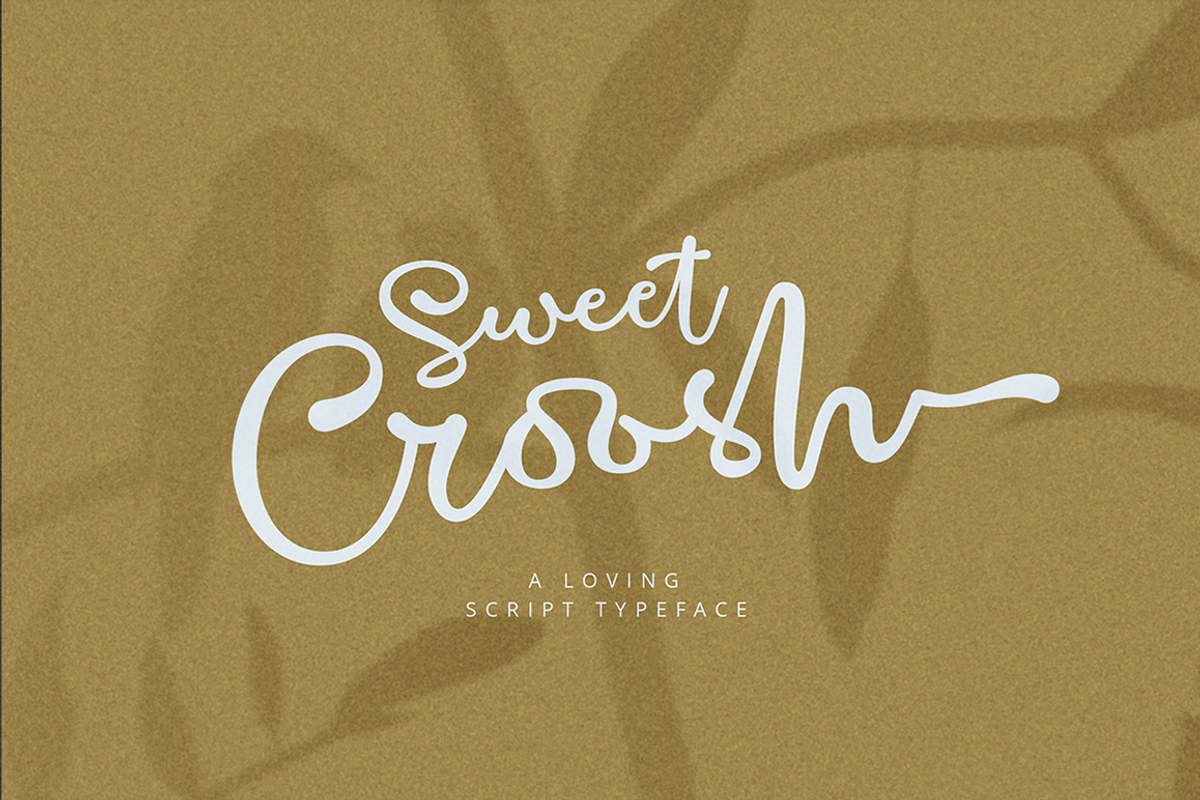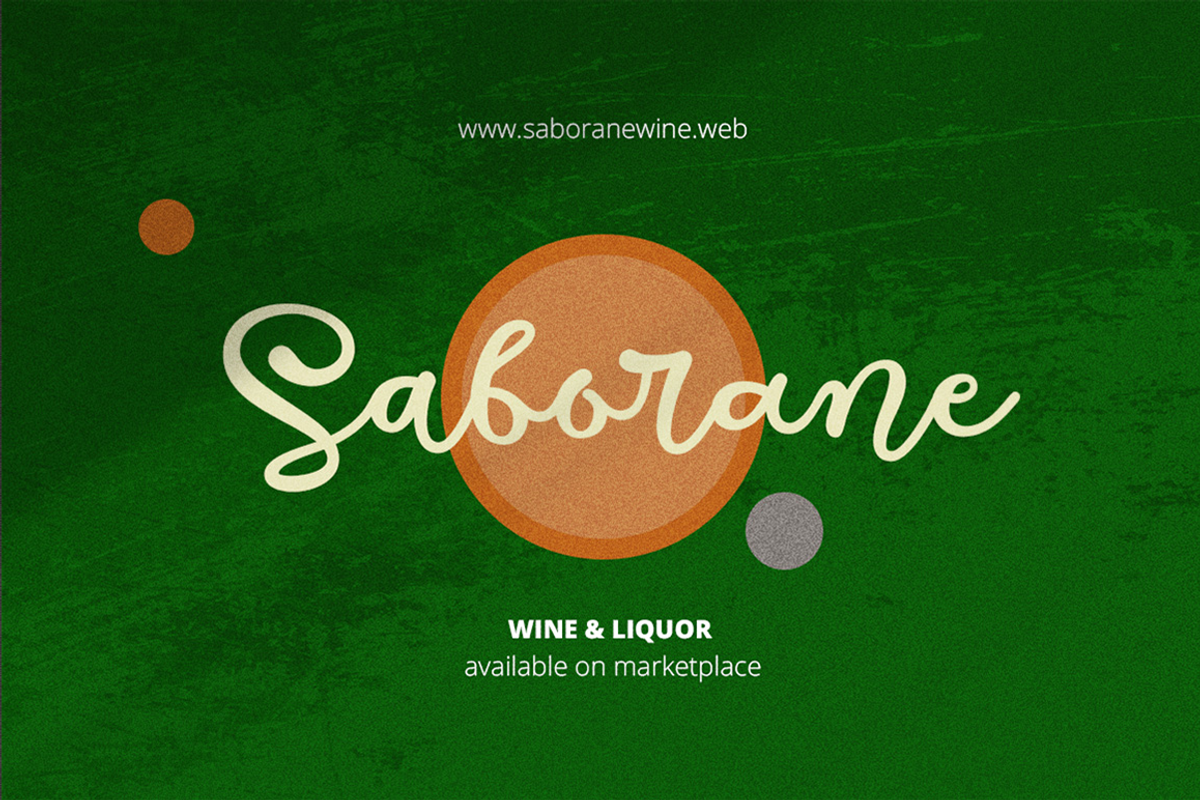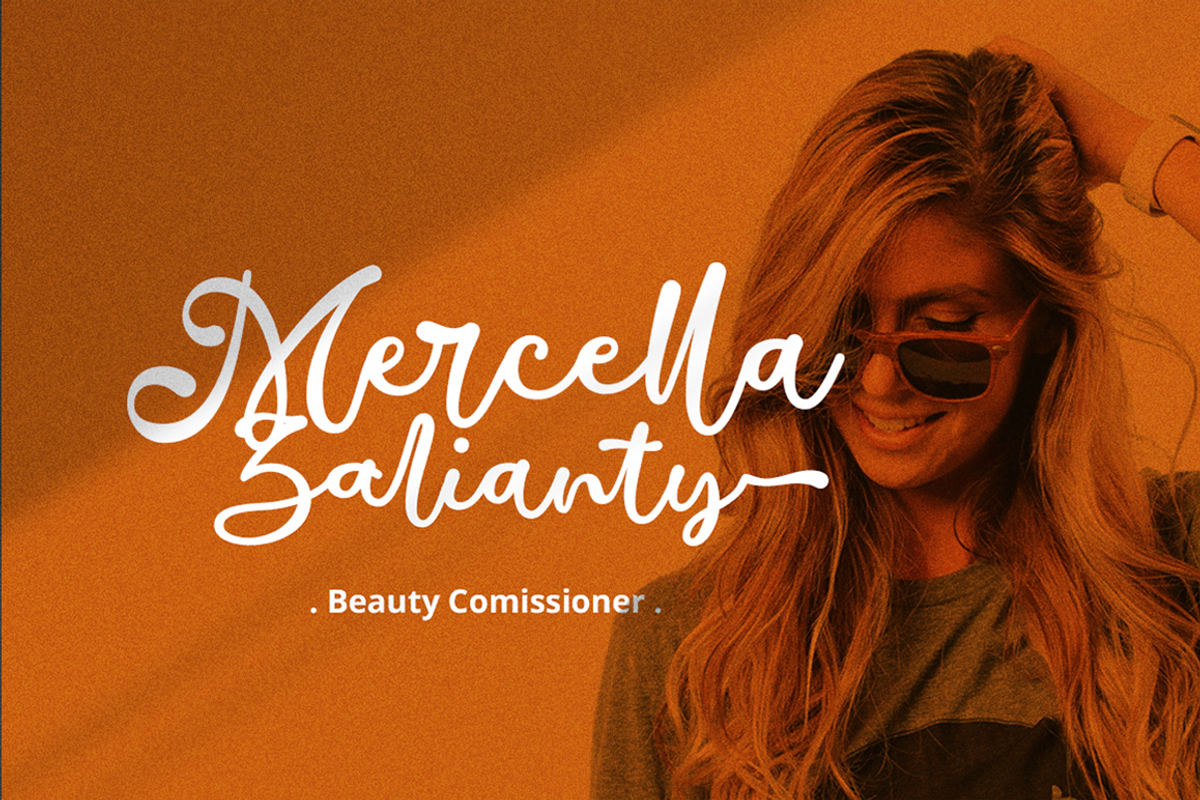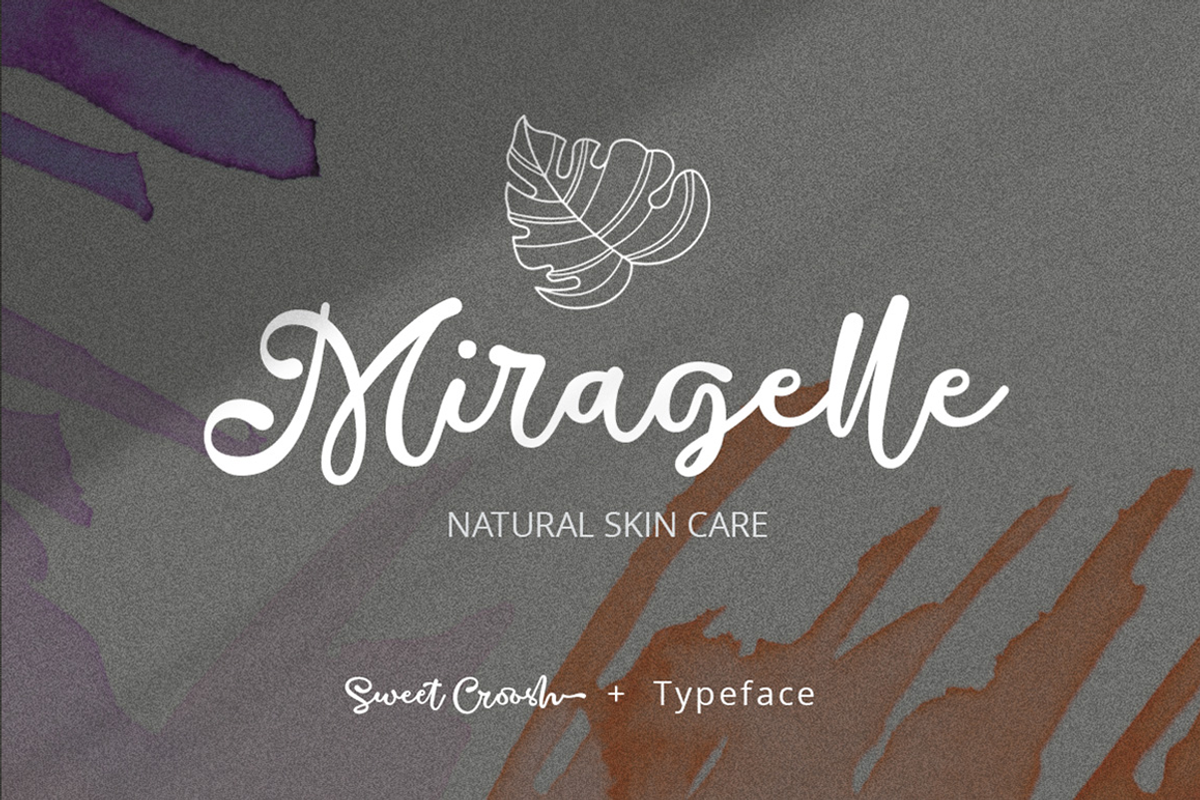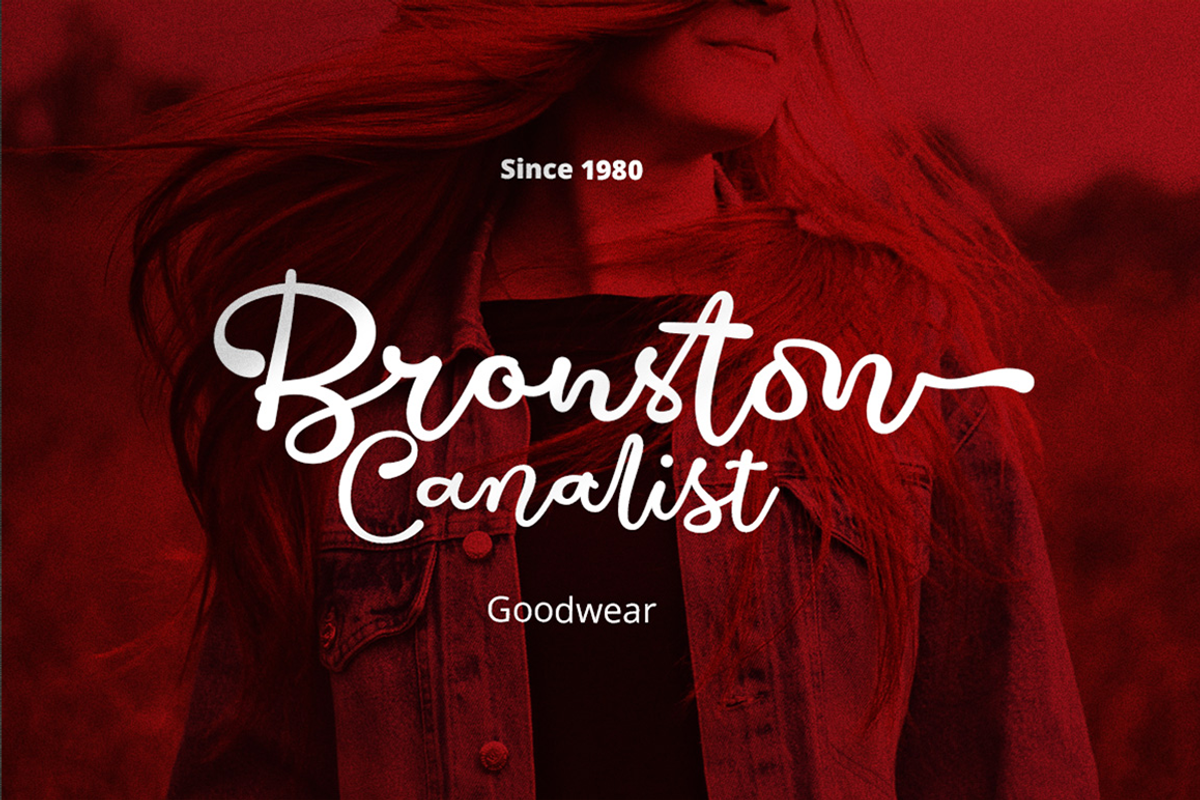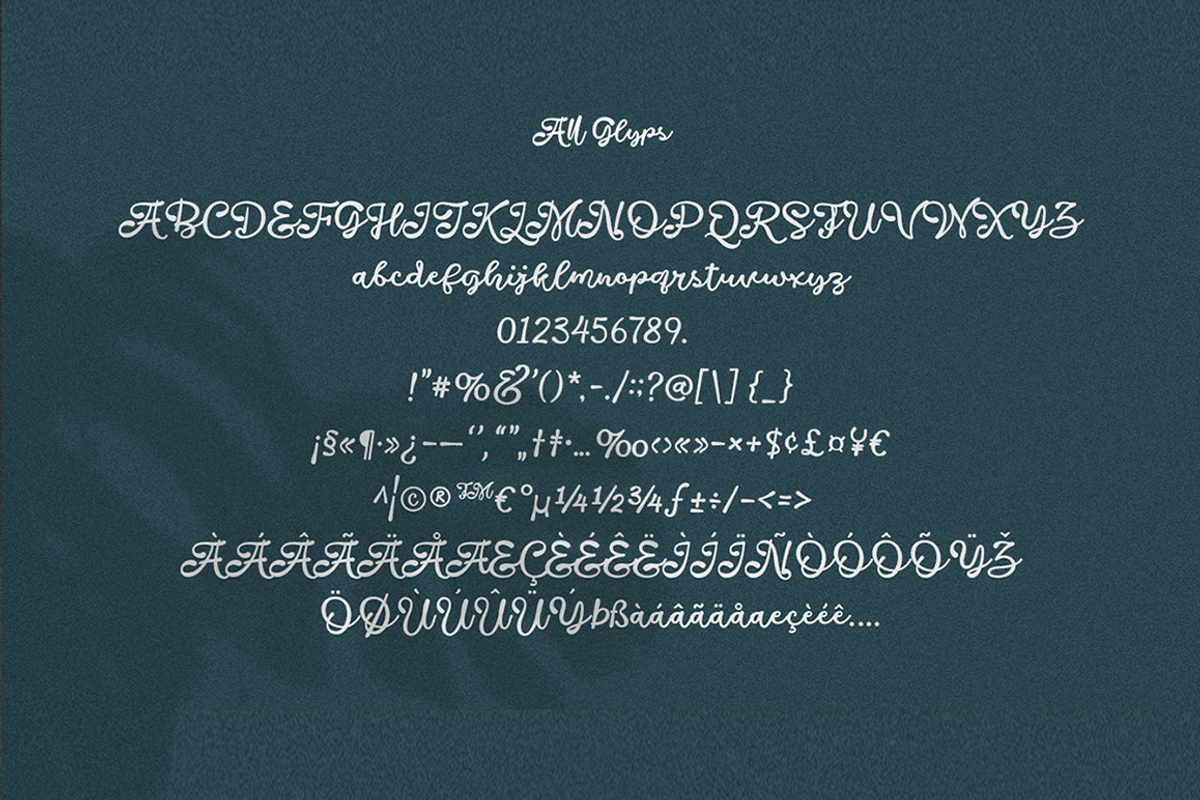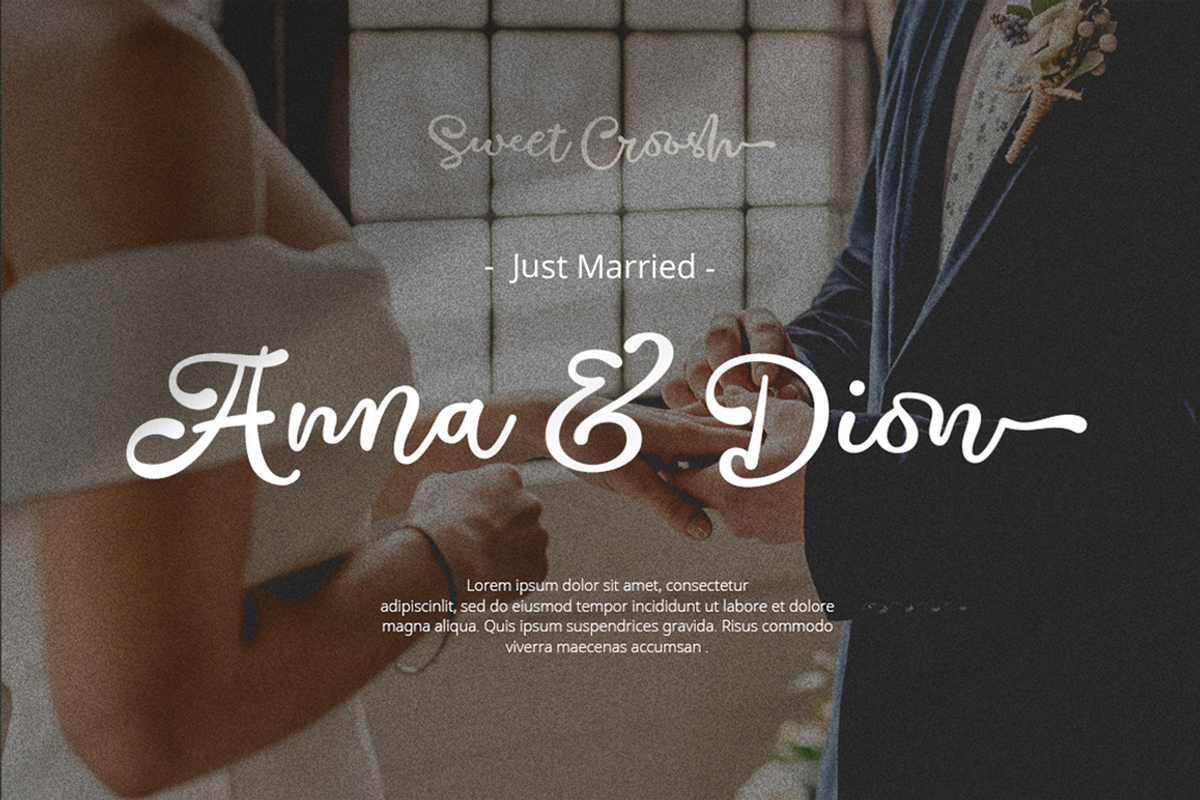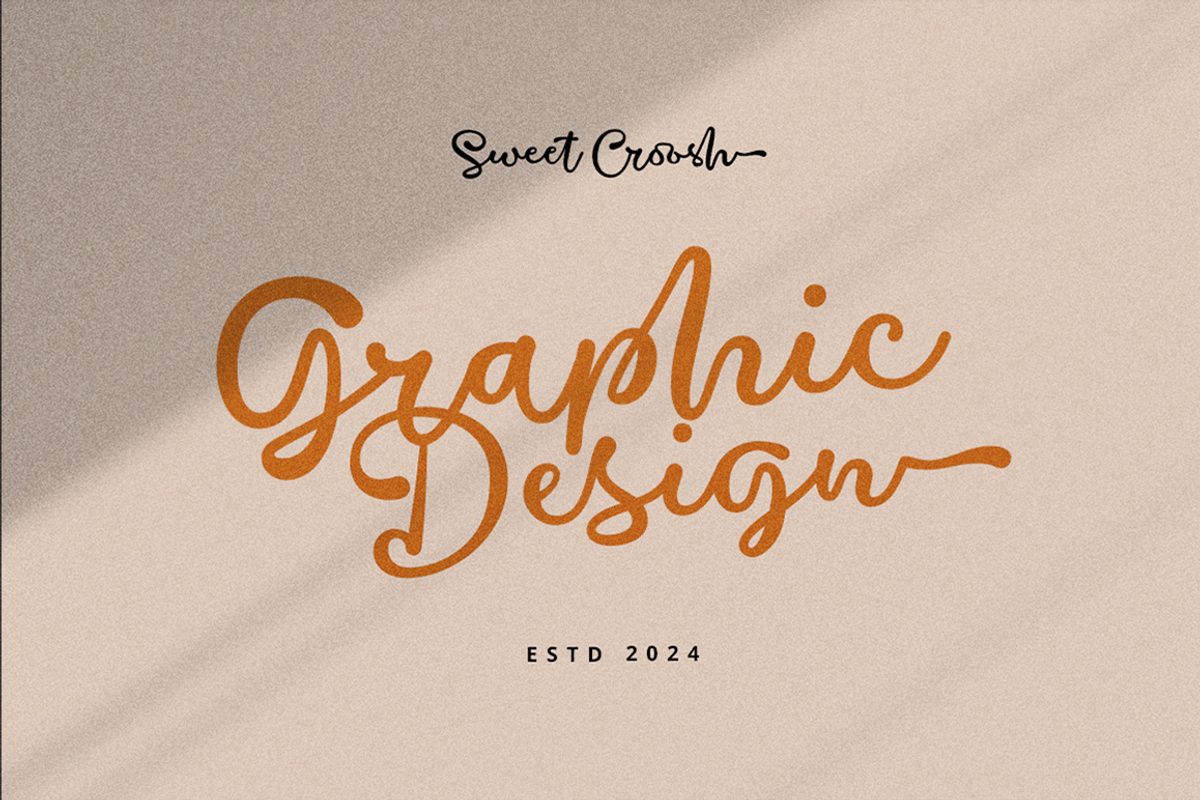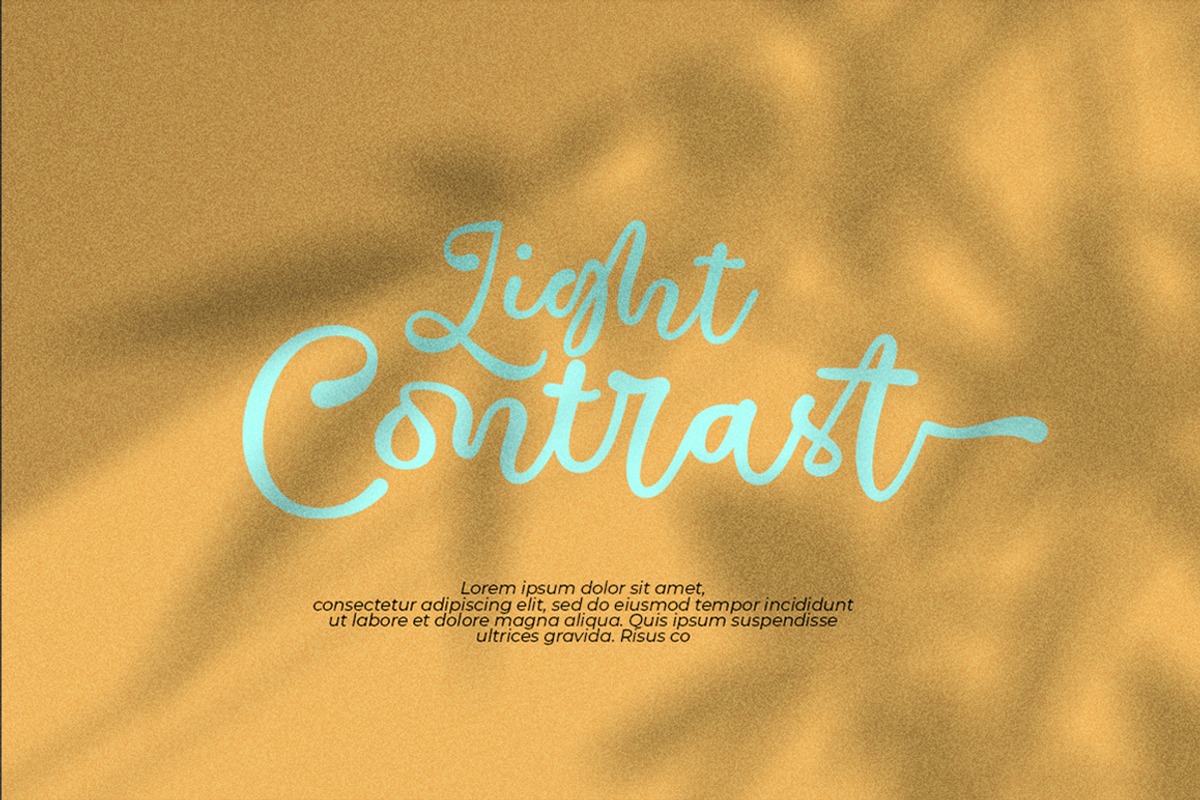
Sweet Croosh Script Font
Sweet Croosh is a beautifully crafted script font that blends natural flow, modern aesthetics, and an air of elegance. Its smooth, hand-drawn strokes evoke a sense of effortless sophistication, making it ideal for projects that require a personal and refined touch. Equipped with numerous ligatures, Sweet Croosh enhances the fluidity of your text, allowing for seamless connections between letters and adding a stylish, custom feel to any design. Perfect for invitations, branding, quotes, and social media posts, this font exudes charm while maintaining versatility.
- Elegant Handwritten Serif Font
- Basic Latin Glyphs
- Unique Characters
- ligatures & Alternates
- Currencies